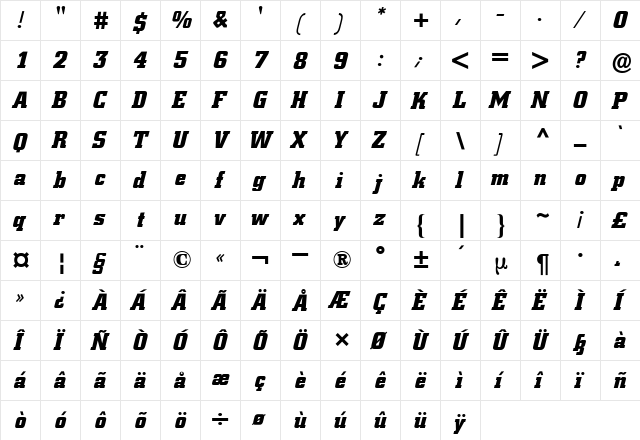
City BQ ItalicBold
Design Context for City BQ Typeface
City BQ is a composed and adaptable typeface that performs quietly and consistently across a wide range of design contexts. The dynamic lean of this cut emphasises speed and emphasis in any layout. The heavy weight commands attention and anchors typographic hierarchies.
Pro Tip: Use City BQ for emphasis, pull quotes, and subheadings where its slanted energy can add rhythm to the layout.